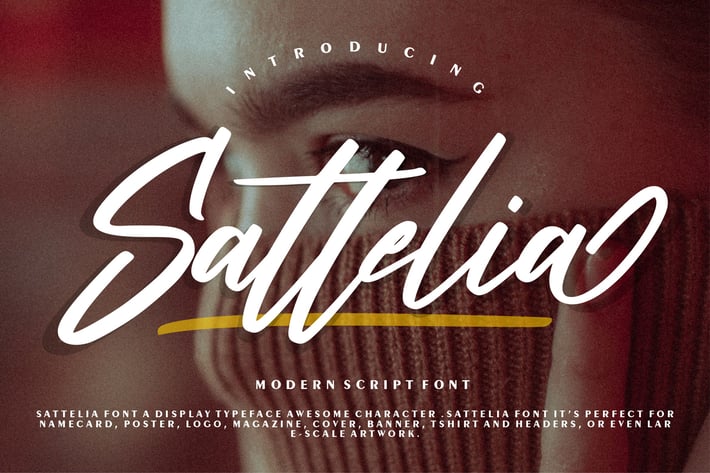
Sattelia | Modern Script Font
Sattelia | Modern Script Font with a calligraphy style, So beautiful on invitation like greeting cards, branding materials, business cards, quotes, posters, and more!